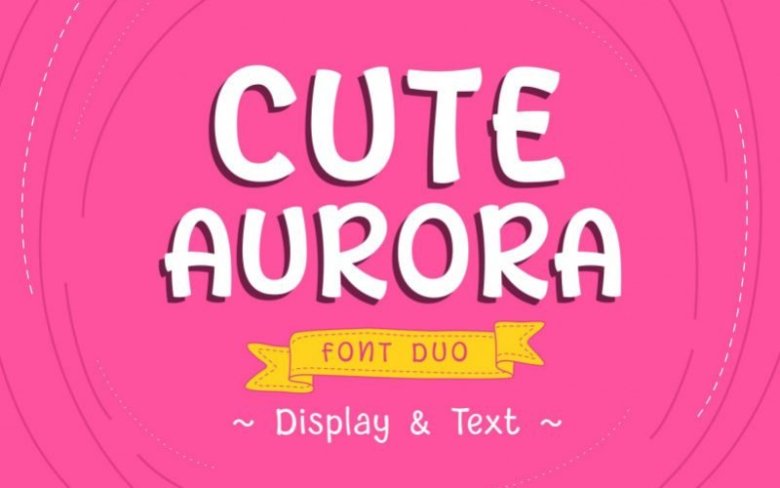
Cute Aurora Display Font
Cute Aurora is a great display font. It comes in two styles, display and text. Combine these styles and create outstanding crafting projects!